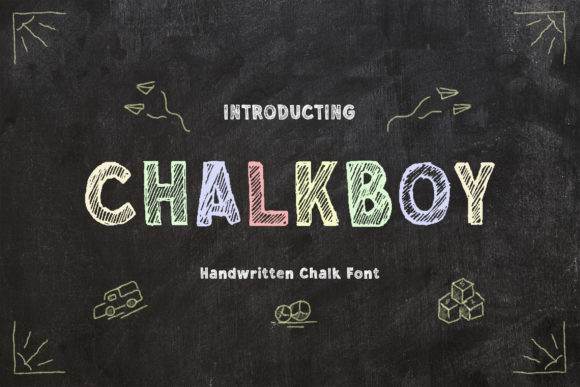
Introducing Chalkboy Font: The Ultimate Choice for Fun and Casual Designs
Are you looking for a font that can add a touch of playfulness and whimsy to your designs? Look no further than Chalkboy Font! This fun and casual display font is perfect for kids, playground, or school themes, and is sure to bring a smile to anyone’s face. In this article, we’ll take a closer look at Chalkboy Font, its features, and how you can use it to create amazing designs.
What is Chalkboy Font?
Chalkboy Font is a display font designed to mimic the look of chalk writing on a blackboard or playground surface. It’s a fun and casual font that’s perfect for creating designs that need a playful touch. The font is highly legible, making it easy to read and understand, even at smaller sizes.
One of the standout features of Chalkboy Font is its unique and quirky design. The font has a hand-drawn feel, with irregular lines and shapes that give it a charming, homemade quality. This makes it perfect for designs that need to feel friendly and approachable.
Features of Chalkboy Font
So, what makes Chalkboy Font so special? Here are just a few of its key features:
- Fun and playful design: Chalkboy Font has a unique and quirky design that’s perfect for creating fun and playful designs.
- Highly legible: Despite its playful design, Chalkboy Font is highly legible, making it easy to read and understand.
- Perfect for kids and school themes: Chalkboy Font is designed with kids and school themes in mind, making it perfect for designs that need to feel youthful and energetic.
- Versatile: Chalkboy Font can be used for a wide range of designs, from digital designs to print materials like greeting cards and posters.
Uses for Chalkboy Font
So, what can you use Chalkboy Font for? The possibilities are endless! Here are just a few ideas to get you started:
- Crafting: Chalkboy Font is perfect for crafting projects, such as scrapbooking, card making, and other paper crafts.
- Digital designing: Chalkboy Font can be used to create digital designs, such as social media graphics, blog posts, and website headers.
- Presentations: Add a touch of whimsy to your presentations with Chalkboy Font.
- Greeting cards: Chalkboy Font is perfect for creating fun and playful greeting cards for kids and adults alike.
- Posters and flyers: Use Chalkboy Font to create eye-catching posters and flyers for kids’ events, school activities, and more.
Tips for Using Chalkboy Font
Here are a few tips for getting the most out of Chalkboy Font:
- Use it sparingly: Chalkboy Font is a display font, so it’s best used sparingly. Use it to add emphasis or create a focal point in your design.
- Pair it with other fonts: Chalkboy Font pairs well with other fonts, such as sans-serif fonts like Arial or Helvetica. Experiment with different pairings to find the one that works best for your design.
- Experiment with colors: Chalkboy Font looks great in a variety of colors, from bright and bold to pastel and soft. Experiment with different colors to find the one that works best for your design.
In conclusion, Chalkboy Font is a fun and casual display font that’s perfect for kids, playground, or school themes. Its unique and quirky design makes it perfect for adding a touch of whimsy to your designs, while its high legibility makes it easy to read and understand. Whether you’re using it for crafting, digital designing, presentations, or greeting cards making, Chalkboy Font is the best choice!
- What is Chalkboy Font? Chalkboy Font is a fun and casual display font designed to mimic the look of chalk writing on a blackboard or playground surface.